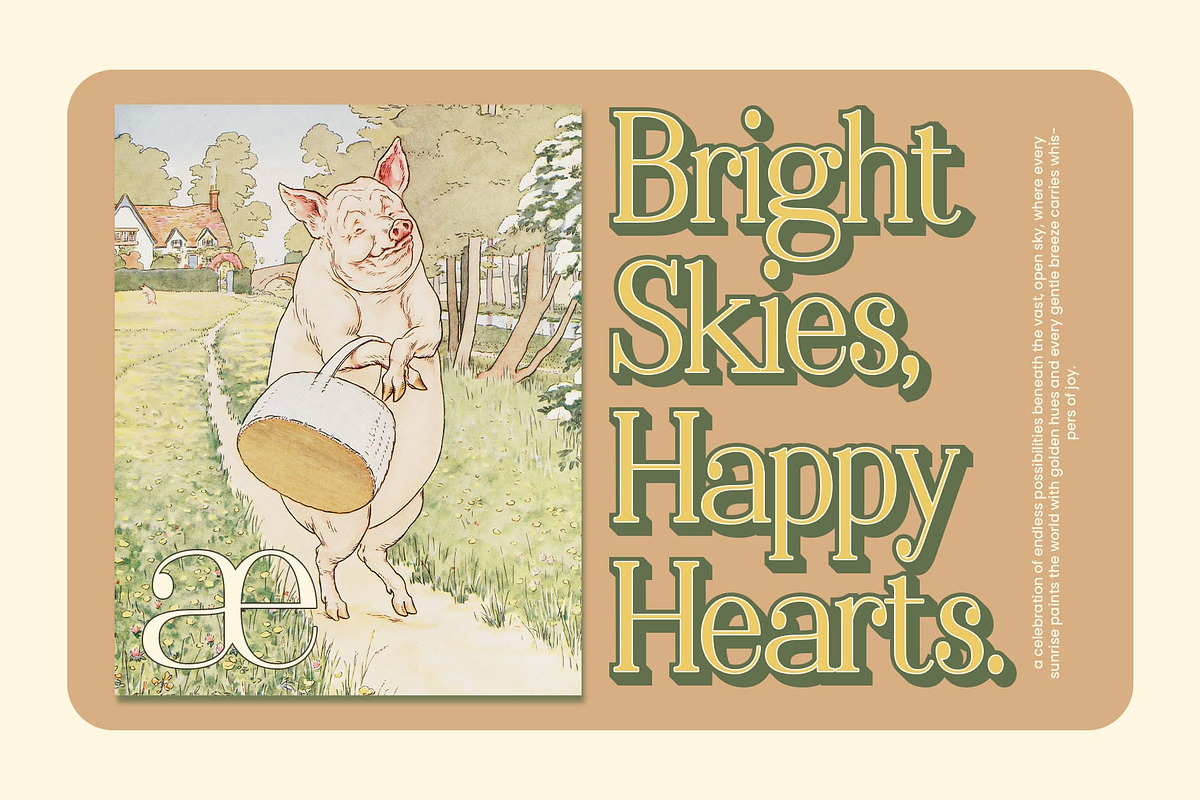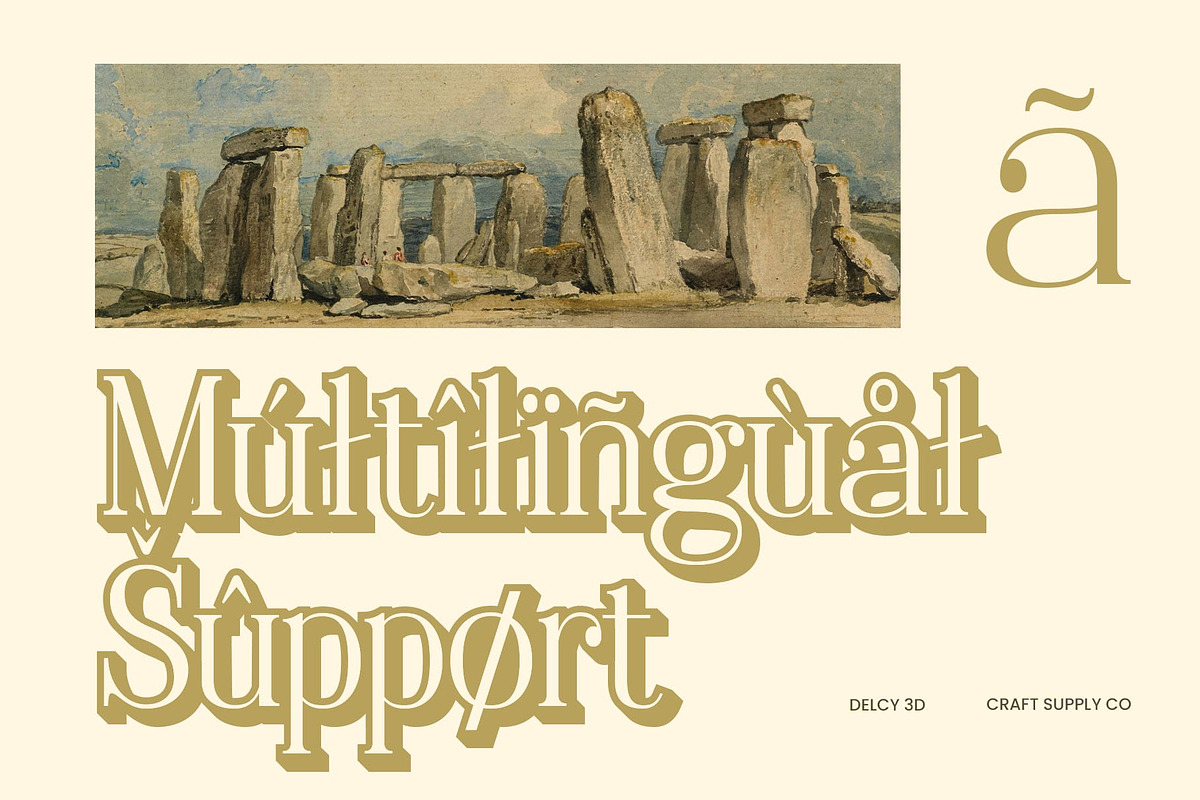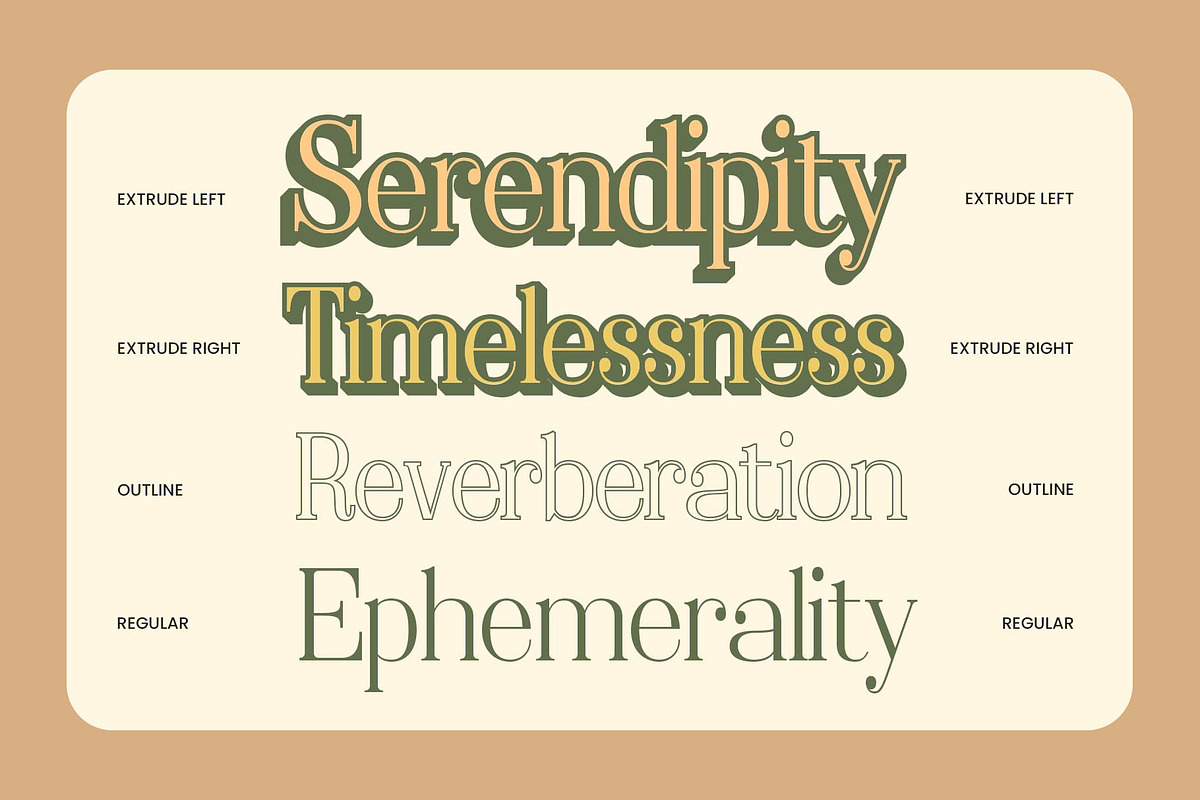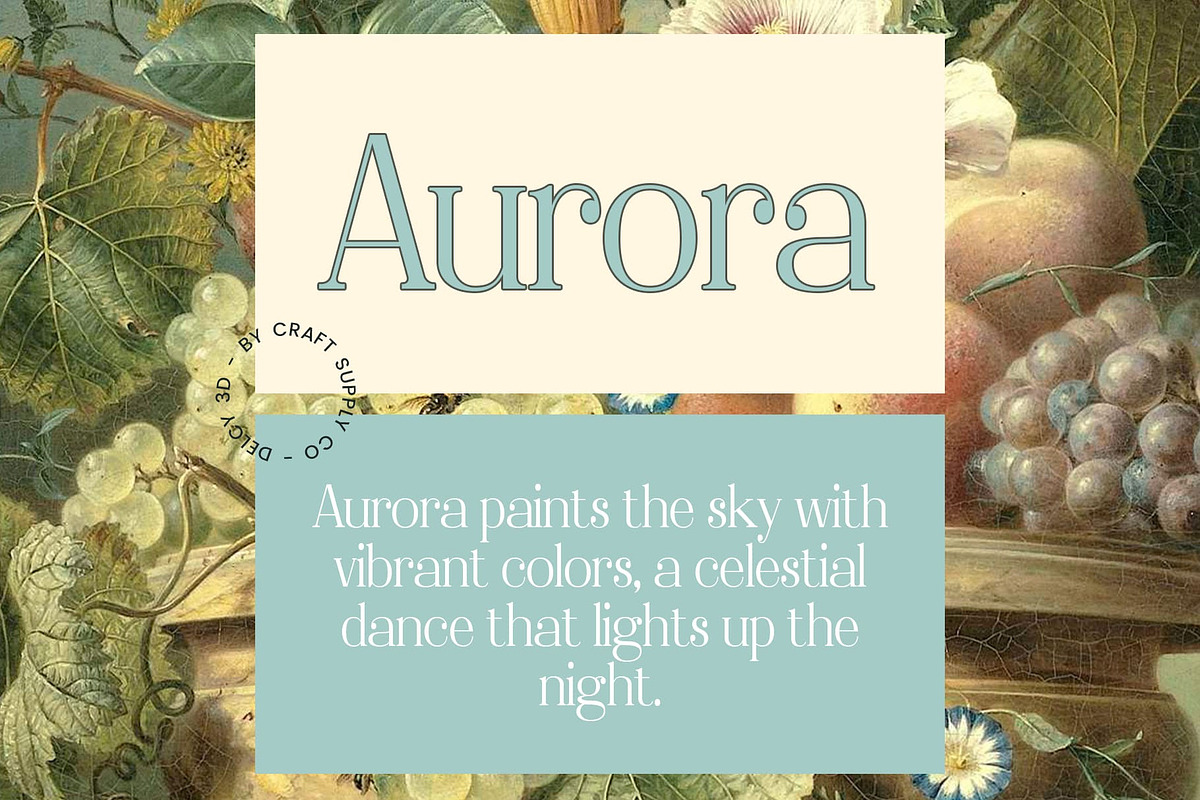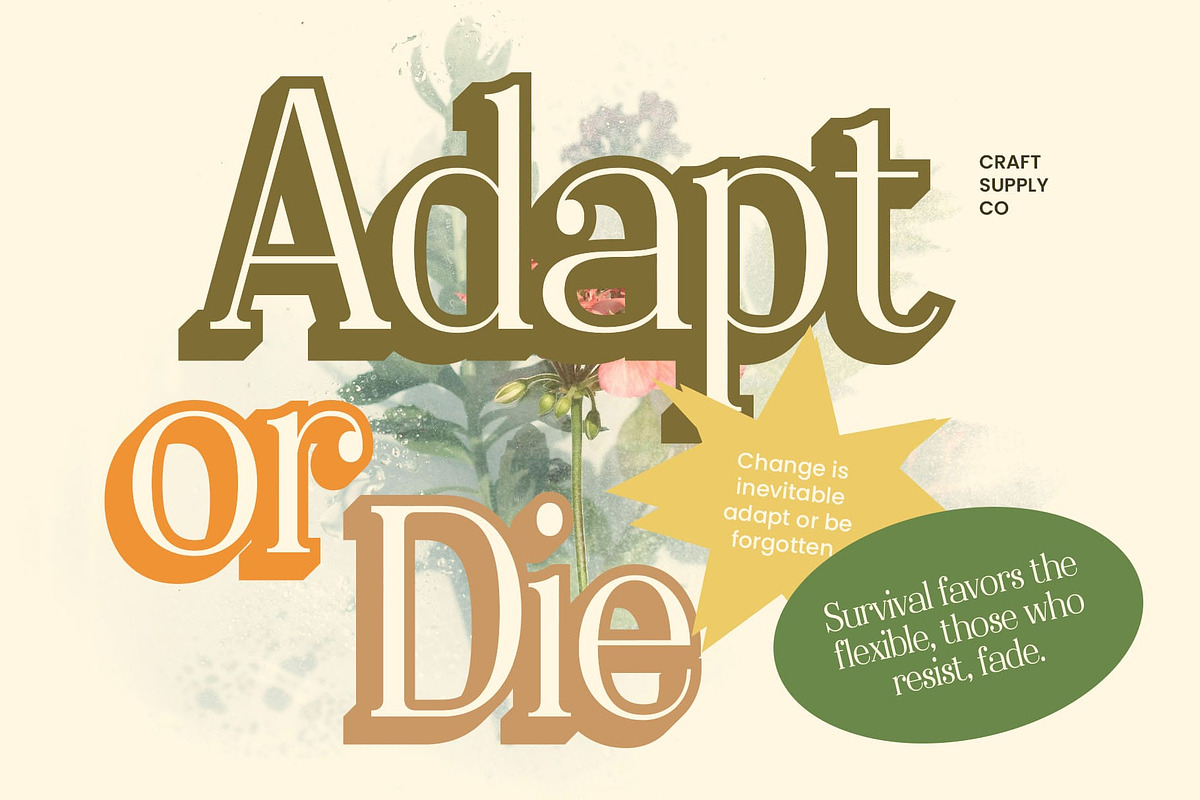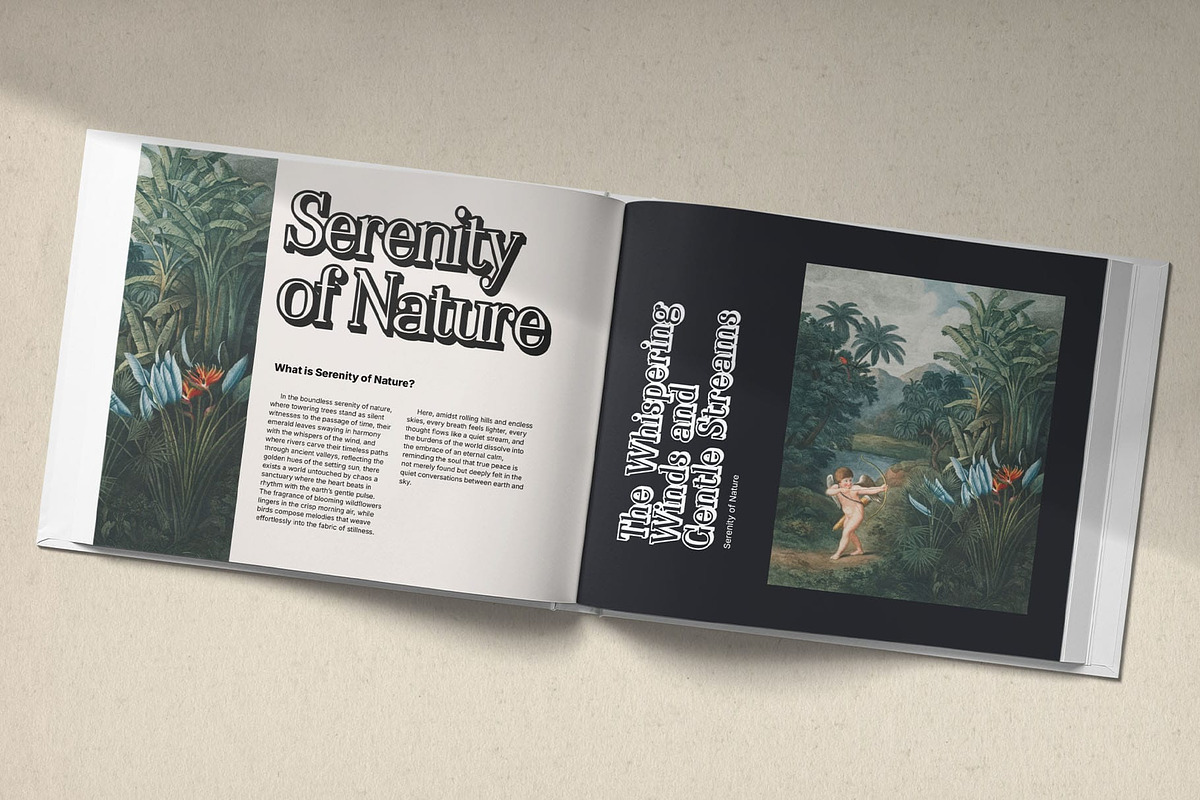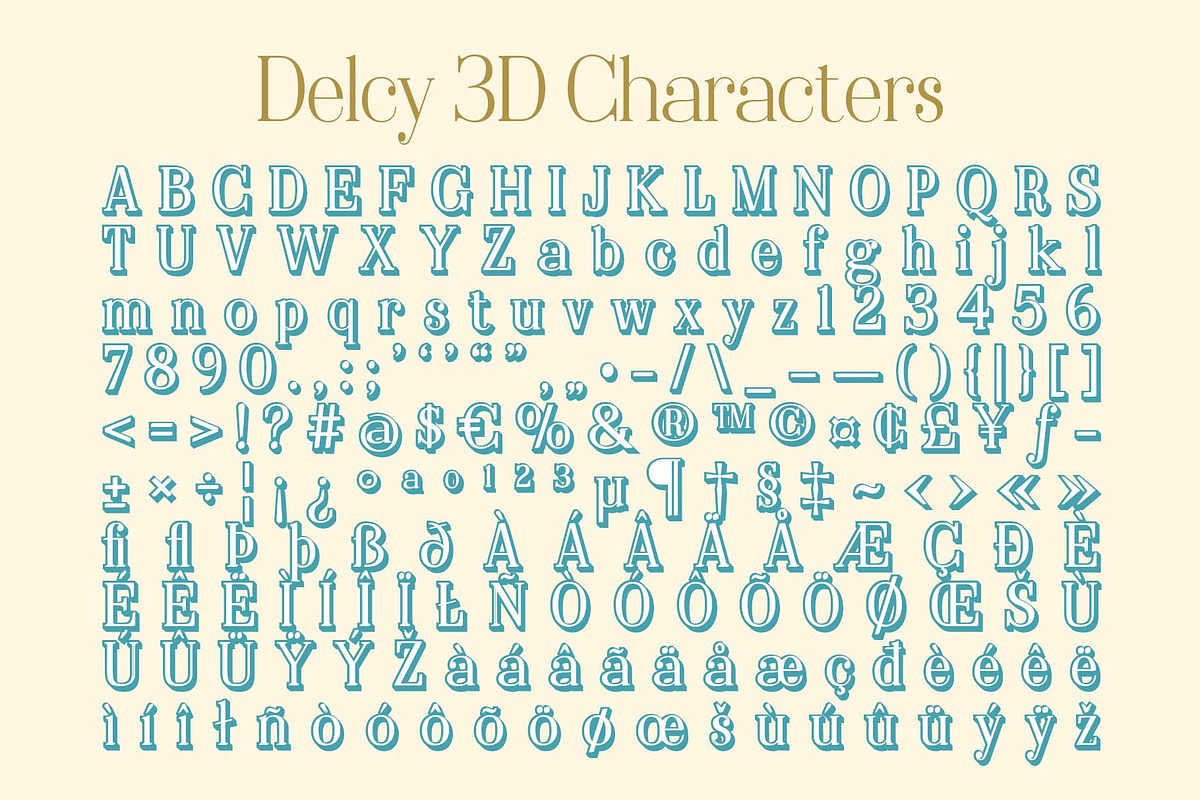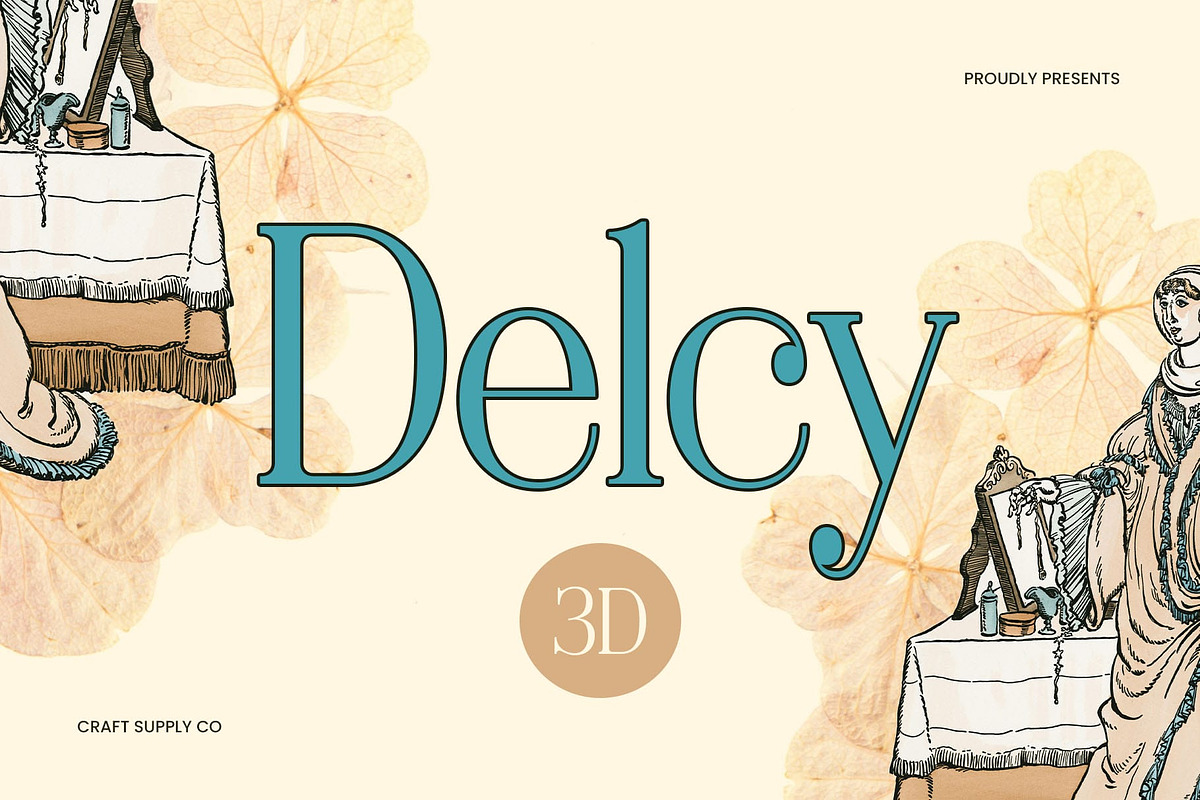
Delcy 3D
Delcy 3D Font: Elegance in Dimensional Form
Minimalist Serif with a Luxurious Touch Delcy 3D is a modern serif font that blends minimalism, elegance, and sophistication. With its clean and refined letterforms, this font conveys professionalism and a luxurious aesthetic, making it an excellent choice for high-end branding, editorial layouts, and premium design projects.
3D Effect for a Striking and Dynamic Look The 3D effect adds depth and visual intrigue, making the font stand out with a bold yet sophisticated touch. This dimensional aspect enhances the clarity and readability of the text while maintaining a sleek and premium aesthetic. Delcy 3D is designed to create a strong impact in editorials, luxury invitations, packaging, and high-end marketing materials.
Timeless Elegance Meets Modern Design Inspired by classic serif fonts, Delcy 3D carries a timeless charm, yet its contemporary execution makes it feel fresh and modern. The combination of structured letterforms and subtle curves ensures a balance between tradition and innovation. This makes it ideal for luxury branding, elegant advertising, high-fashion projects, and exclusive publications that demand a classy yet forward-thinking approach.
Perfect for Exclusive and High-End Projects From premium logos to exclusive product packaging, Delcy 3D elevates any design with its sophisticated and prestigious appeal. The font’s depth, clarity, and stylish refinement make it a go-to choice for designers who want to communicate luxury, exclusivity, and modernity in a single typeface.
- Delcy Regular
- Delcy Outline
- Delcy Extrude Right
- Delcy Extrude Left